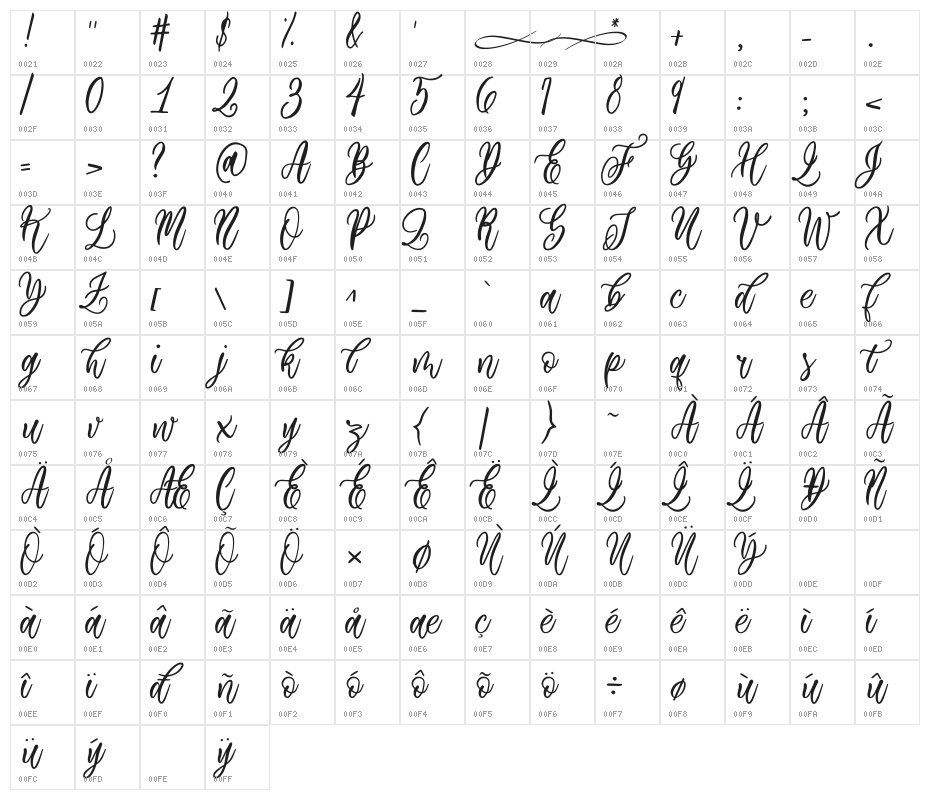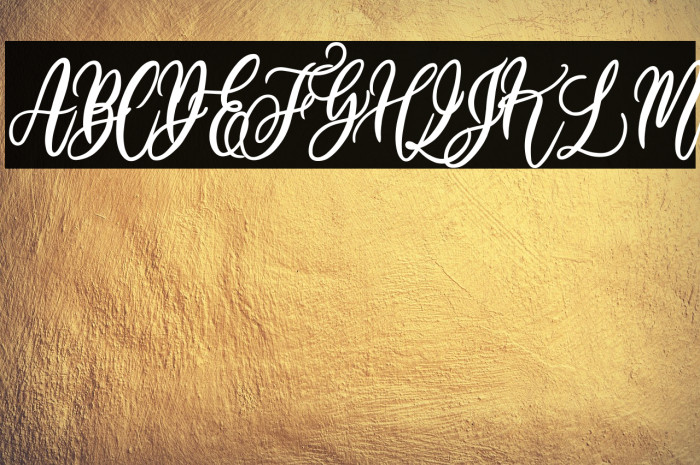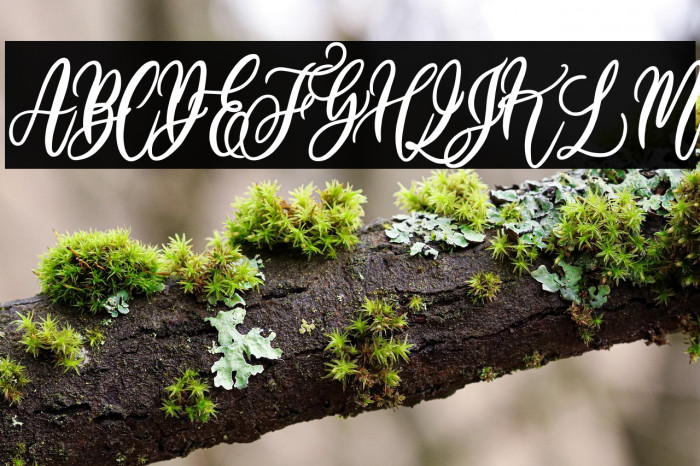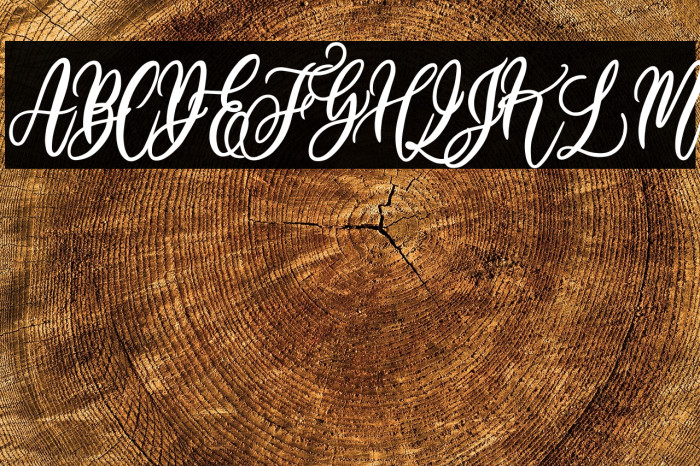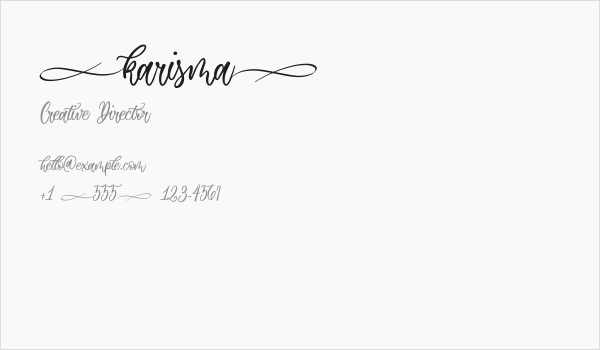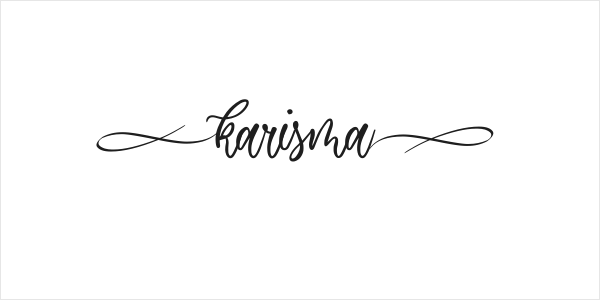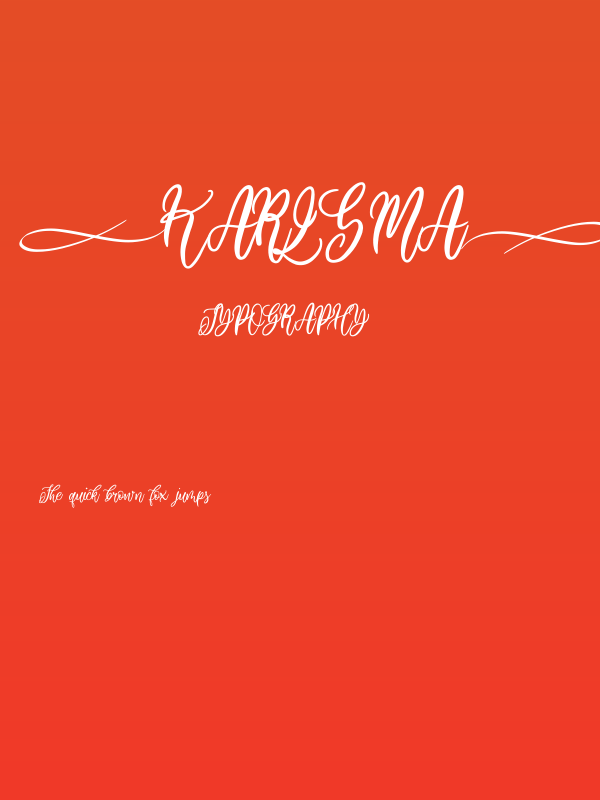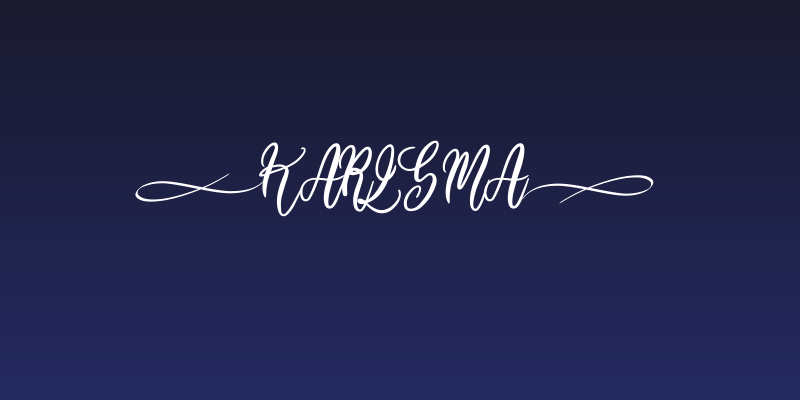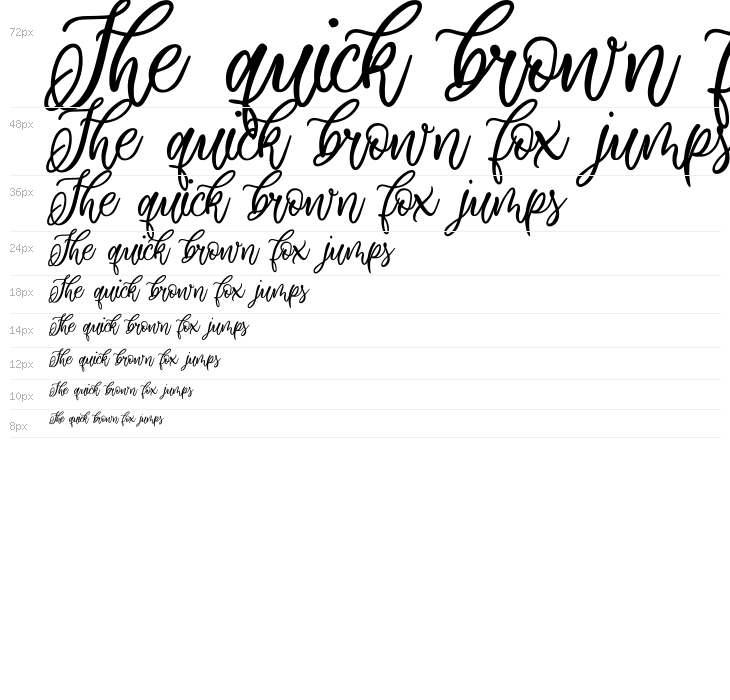
(karisma) Font
(karisma) Description
This font exhibits a flowing, cursive style with elegant, sweeping strokes that give it a sophisticated and artistic appearance. The uppercase letters are particularly ornate, featuring intricate loops and flourishes that enhance its decorative quality. The lowercase letters maintain a consistent style, with smooth connections between characters that mimic natural handwriting. Numbers and special characters are designed with the same attention to detail, ensuring a cohesive look across all glyphs. This font's overall aesthetic is both graceful and dynamic, making it suitable for projects that require a touch of elegance and creativity.